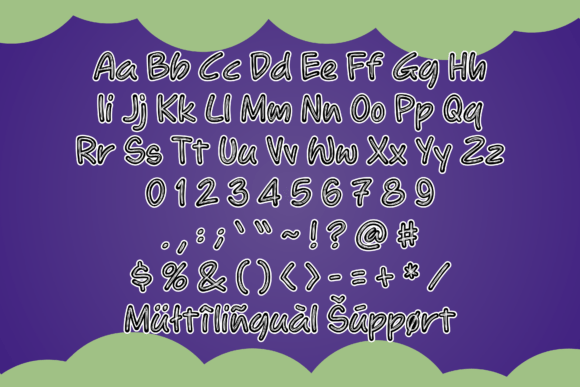
Introduction to Scratchy Shadows Font
As designers, we’ve all been there – staring at a blank canvas, trying to conjure up the perfect design for a project that requires a touch of whimsy. And then, it hits us – the perfect font to bring our creative vision to life. For Halloween-themed projects, one font stands out from the rest: the enchanting Scratchy Shadows Font. With its playful, handwritten style and subtle scratchy lines, this design resource is a treasure trove of creative possibilities.
Whether you’re crafting party invitations, designing stickers, or working on a high-quality design project that requires a unique touch, the Scratchy Shadows Font is an excellent choice. Its transparent background and free download make it a valuable resource for designers looking to add handmade charm to their festive creations. And with its high-quality design, you can trust that your projects will look professional and polished, even with a playful, doodle-like aesthetic.
Key Features of Scratchy Shadows Font
- Unique, hand-drawn design with a distressed texture, ideal for creative projects and designs with a vintage feel.
- High-quality font with a transparent background, allowing for seamless integration into various design elements.
- Supports a wide range of languages, making it a versatile design resource for international projects.
- Perfect for use in graphics, logos, typography, and other creative projects where a unique, textured font is desired.
Honest Review: Scratchy Shadows Font
As a designer, I’m always on the lookout for unique and high-quality design resources to elevate my creative projects. Recently, I came across the Scratchy Shadows Font, and I was excited to give it a try.
Here’s what I like about the Scratchy Shadows Font:
- ✨ The font is incredibly versatile, with a range of styles and weights to suit different design needs.
- ✨ The high-quality design ensures that the font looks great on a transparent background, making it perfect for digital designs.
- ⚠️ The font may not be suitable for print designs, as the scratchy texture can be difficult to reproduce on physical materials.
- ⚠️ The font is a bit limited in terms of character sets, which may make it less useful for designers who need to typeset extensive text.
Overall, I’m impressed with the Scratchy Shadows Font. While it may have some limitations, its unique design and high-quality rendering make it a valuable addition to any designer’s toolkit. I’d definitely recommend it to designers working on digital projects or looking for a creative way to add some texture to their designs.
How to Use Scratchy Shadows Font
Scratchy Shadows Font is commonly used in creative projects such as graphic design, digital art, and typography. It’s perfect for adding a unique and edgy touch to your designs.
To get the most out of Scratchy Shadows Font, experiment with different font sizes and styles. You can also combine it with other design elements to create a unique look. Don’t be afraid to try out new things and see what works best for your project.